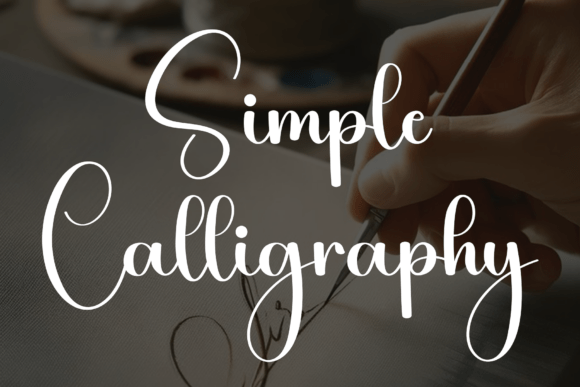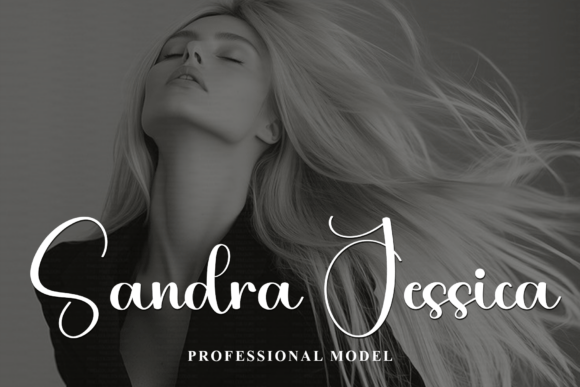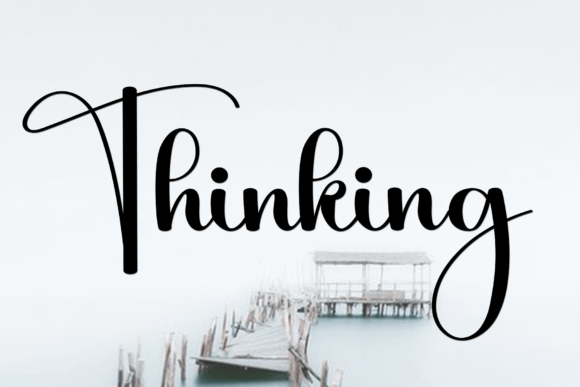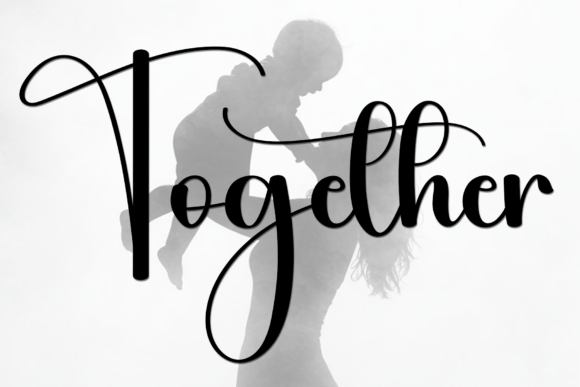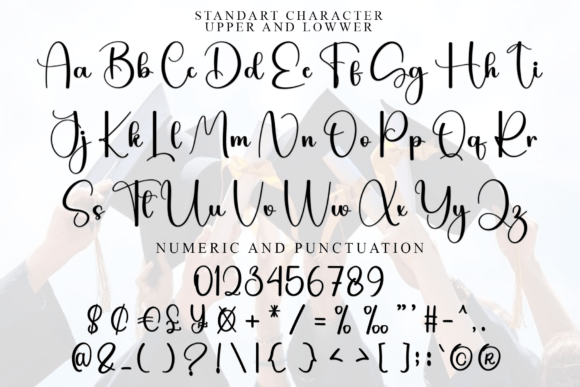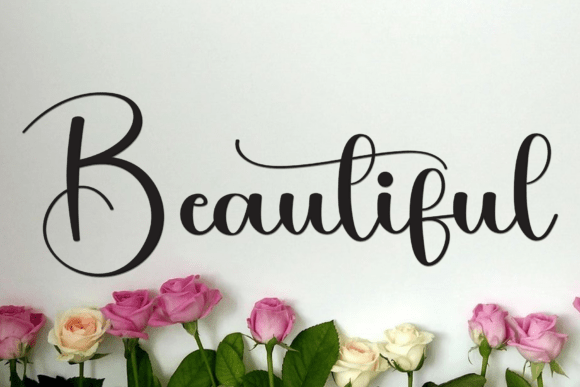
Daddy Graduation Font: Add a Touch of Holiday Cheer to Your Designs
The holiday season is upon us, and with it comes the joy of creating festive and merry designs that capture the spirit of the season. If you’re a designer or crafter looking for a font that embodies the whimsy and enchantment of the holidays, look no further than the Daddy Graduation Font. This delightful typeface is perfect for adding a touch of nostalgia and cheer to your projects, and in this article, we’ll explore its features and benefits in more detail.
Daddy Graduation Font is a decorative typeface that is specifically designed to evoke the magic of the holiday season. Its whimsical flair and enchanting elements make it perfect for creating designs that are both festive and fun. Whether you’re working on greeting cards, gift tags, or holiday-themed projects, this font is sure to bring a smile to your face and a touch of wonder to your designs.
So, what makes Daddy Graduation Font so well-suited for holiday projects? For starters, its decorative elements and whimsical flair are perfectly suited to the festive and merry atmosphere of the season. Additionally, the font’s nostalgic ambiance is sure to evoke memories of Christmases past, making it perfect for creating designs that are both sentimental and special.
One of the best things about Daddy Graduation Font is that it’s PUA encoded, which means that you can access all of the amazing glyphs and ligatures with ease. This makes it simple to create beautiful and intricate designs that are sure to impress. Whether you’re a seasoned designer or a crafter just starting out, the PUA encoding of this font makes it easy to get the most out of your typography.
So, what are some of the key features and benefits of Daddy Graduation Font? Here are just a few highlights:
- Festive and merry design: Perfect for holiday projects and designs
- Whimsical flair: Adds a touch of enchantment and wonder to your designs
- PUA encoded: Easy access to glyphs and ligatures
- Nostalgic ambiance: Evokes memories of Christmases past
- Perfect for designers and crafters: Suitable for a wide range of projects and applications
Tips for Using Daddy Graduation Font
So, how can you get the most out of Daddy Graduation Font? Here are a few tips:
- Use it for holiday projects: Greeting cards, gift tags, and holiday-themed designs are all perfect applications for this font
- Experiment with different sizes and colors: Find the perfect combination to match your design
- Combine it with other fonts: Create a unique and eye-catching design by pairing Daddy Graduation Font with other typography
- Take advantage of PUA encoding: Use the glyphs and ligatures to add an extra touch of whimsy and flair to your designs
Daddy Graduation Font is a delightful and festive typeface that is perfect for adding a touch of holiday cheer to your designs. With its whimsical flair, nostalgic ambiance, and PUA encoding, it’s the perfect choice for designers and crafters looking to create beautiful and enchanting designs. Whether you’re working on holiday projects or just want to add a touch of magic to your typography, Daddy Graduation Font is sure to impress.